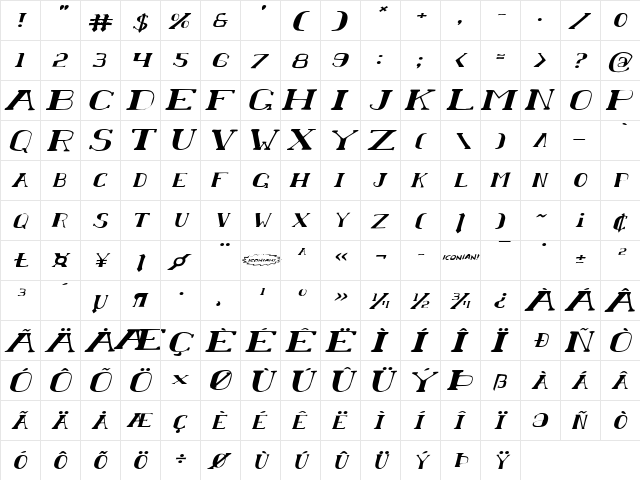
Chardin Doihle Expanded Italic Italic
Design Context for Chardin Doihle Expanded Italic Typeface
Chardin Doihle Expanded Italic takes a measured approach to typography — its balanced proportions and neutral character make it a reliable workhorse for both digital and print work. The dynamic lean of this cut emphasises speed and emphasis in any layout.
Pro Tip: Try Chardin Doihle Expanded Italic for annotation and caption copy alongside an upright companion — the contrast in angle creates a dynamic but ordered typographic system.